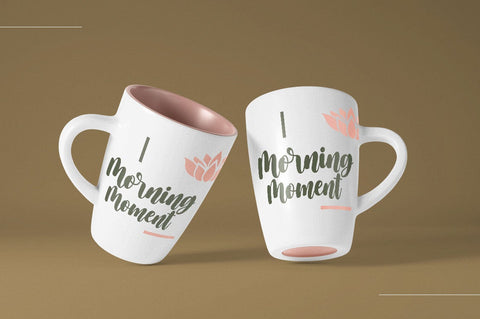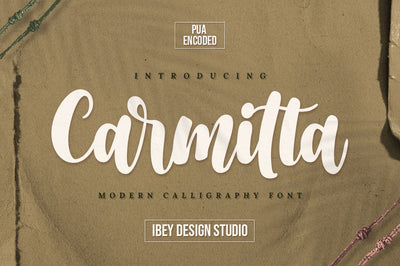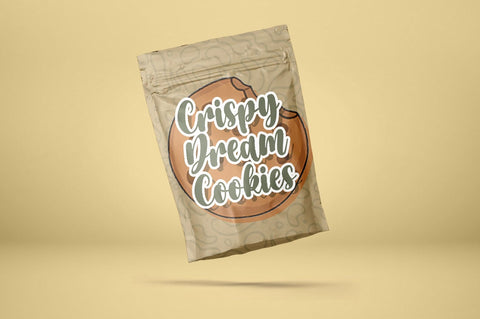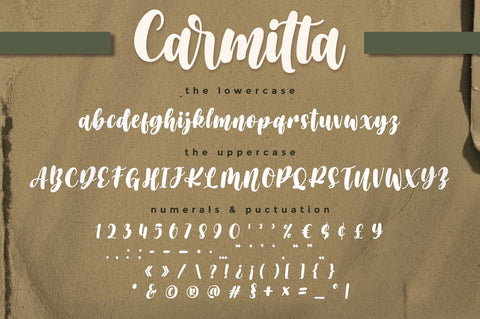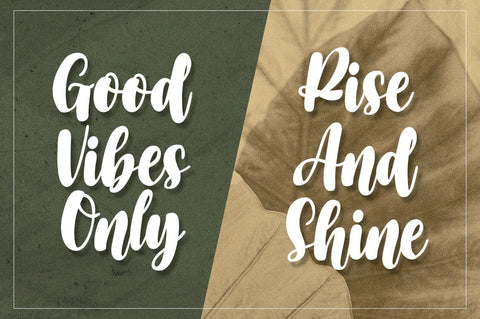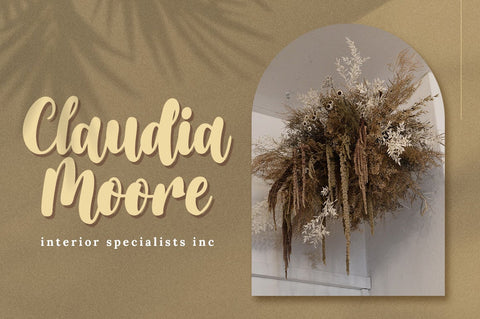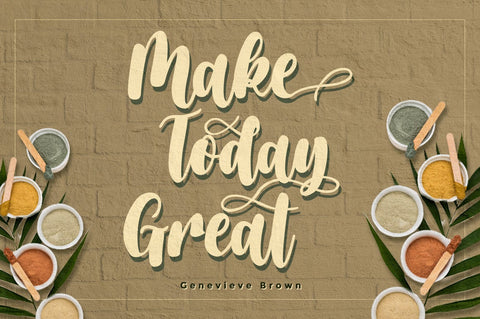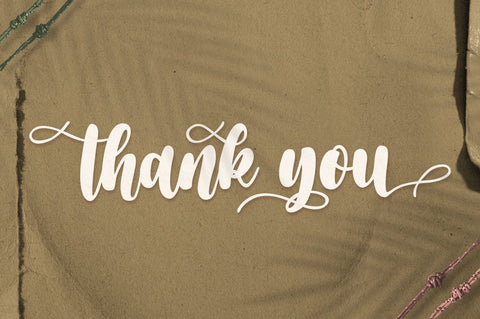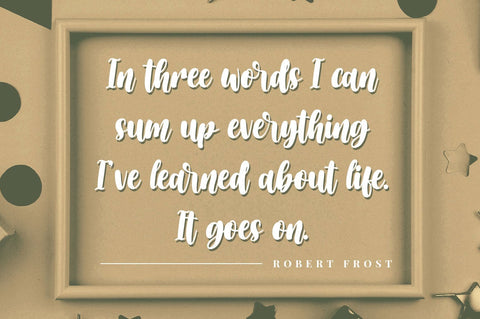
Carmitta - Modern Calligraphy font
Carmitta Modern Calligraphy font is a sweet and delicate handwritten font. Dainty and joyful, this font will be ideal for writing wedding invitations, cards, or any other design that may need a romantic, personalized touch!
Carmitta Modern Calligraphy font is PUA encoded which means you can access all of the glyphs and swashes with ease!